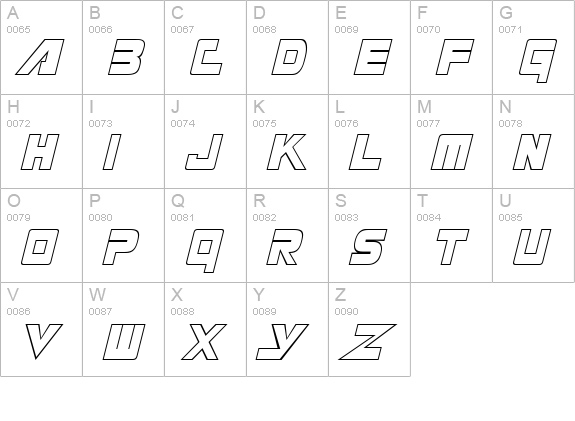
Masterforce Font Details
Masterforce font is a stunning typeface that exudes elegance, sophistication, and a touch of modernity. With its clean lines, graceful curves, and stylish letterforms, this font is perfect for adding a touch of class to any design project. What sets Masterforce font apart is not only its impeccable craftsmanship but also the fact that it is absolutely free. Yes, you heard it right! This incredible font is freely available to download at FontsMarket.com, making it accessible to designers, creatives, and enthusiasts alike who are looking for a high-quality typeface without breaking the bank. Whether you're working on a logo, branding, packaging, invitations, or any other design project, Masterforce font will effortlessly elevate your work to new heights. Its versatility allows it to be used in a variety of contexts, from professional corporate materials to more creative and artistic endeavors. The characters of Masterforce font are meticulously designed, ensuring optimal legibility and readability at any size. Its balanced proportions and carefully crafted curves create a harmonious rhythm that draws the eye and captivates the viewer. With a wide range of weights and styles, including regular, bold, italic, and more, Masterforce font offers endless possibilities for your design projects. Its versatility allows you to play with different combinations, creating visually striking compositions that make a lasting impression. So why wait? Embrace the beauty and elegance of Masterforce font and let your creativity soar. Download it for free today at FontsMarket.com and unlock a world of possibilities for your design projects.